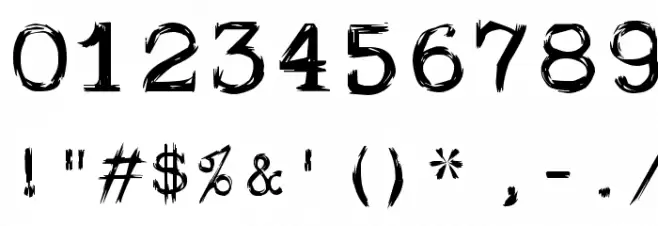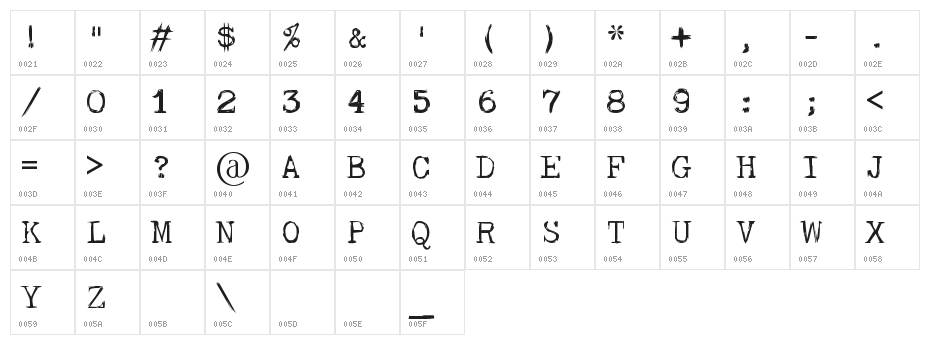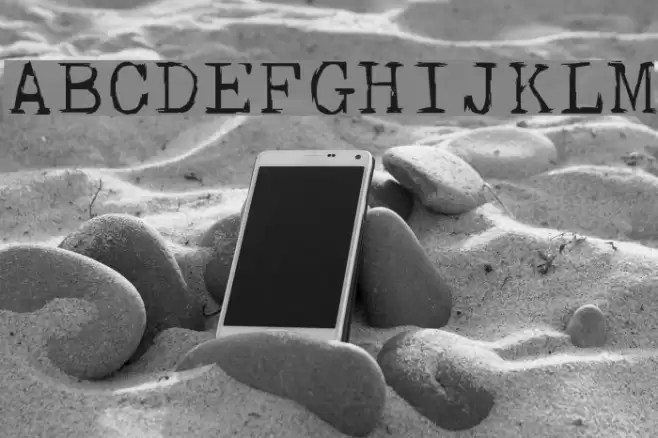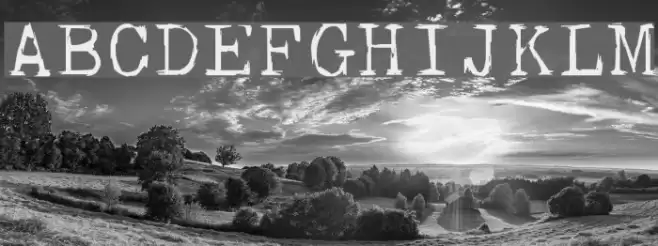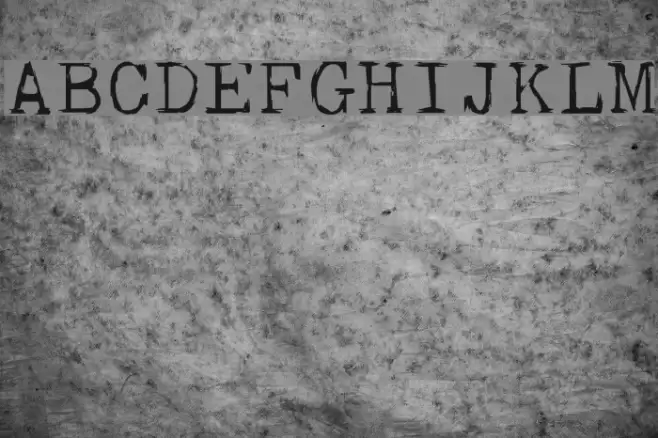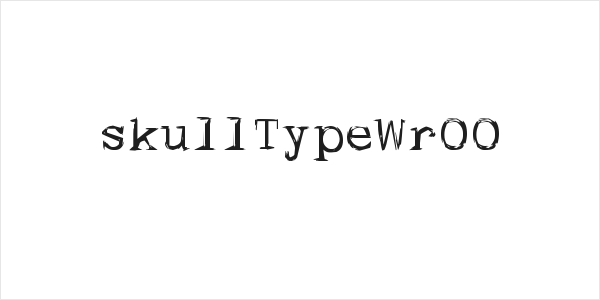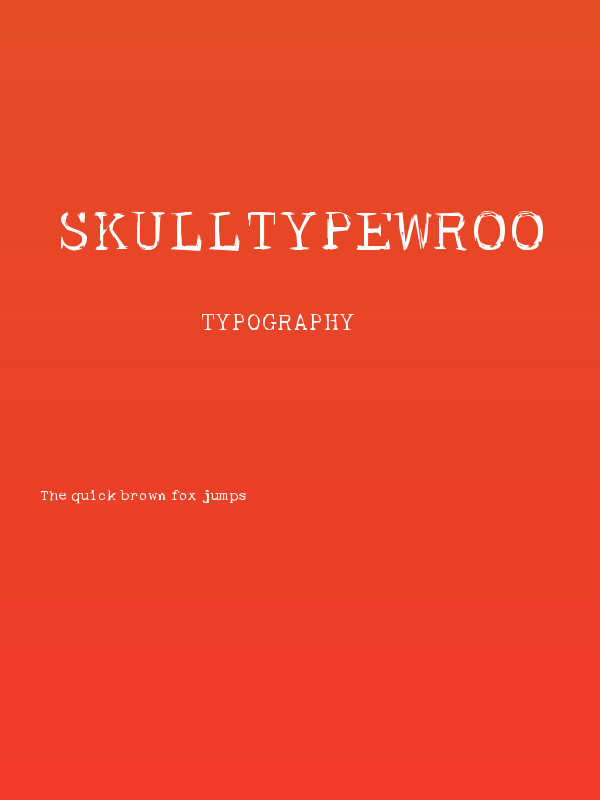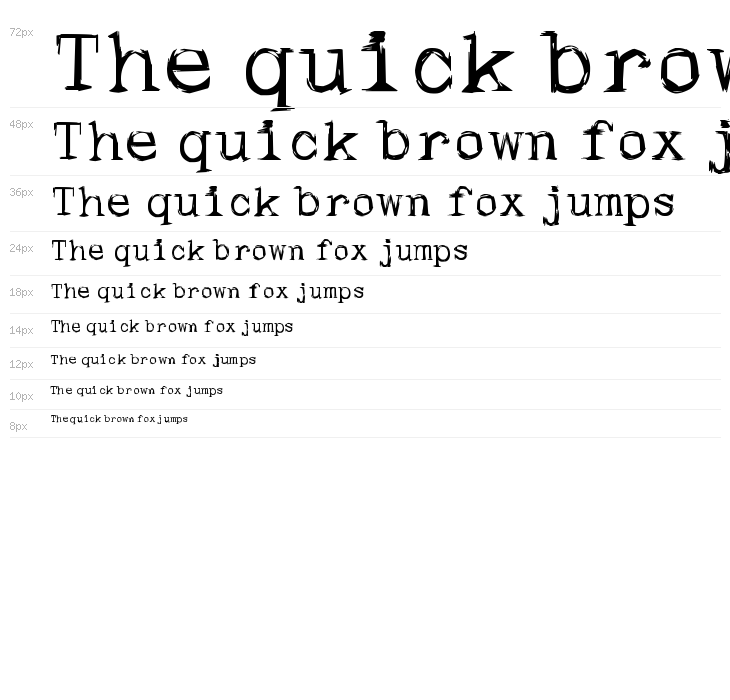
skullTypeWr00 Font
skullTypeWr00 Description
This font features a distressed and grungy aesthetic, characterized by rough, uneven edges and a hand-drawn appearance. The letters have a bold presence with an irregular texture that gives them a unique, edgy look. The uppercase and lowercase characters maintain a consistent style, with a slightly condensed form that enhances their rugged charm. Numbers and special characters follow the same design, ensuring a cohesive appearance across all glyphs. This font's distinctive style makes it ideal for projects that require a bold, unconventional look.
| Overall Style | Grunge, Edgy |
| Proposed Projects | Ideal for album covers, posters, and edgy branding projects. |